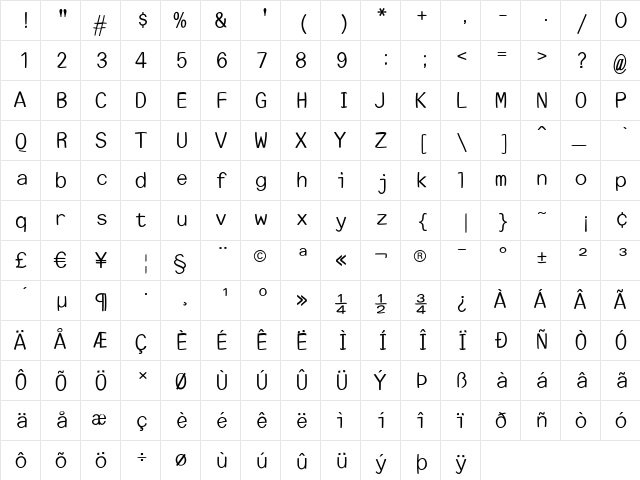
EscapeTypewriterSans Regular Font Preview
EscapeTypewriterSans Regular
Design Context for EscapeTypewriterSans Typeface
EscapeTypewriterSans uses fixed-width spacing throughout, giving it the structured, systematic character associated with coding environments and technical documentation.
Pro Tip: Pair EscapeTypewriterSans with a proportional sans for UI contexts where code-style labels and regular body copy need to coexist.